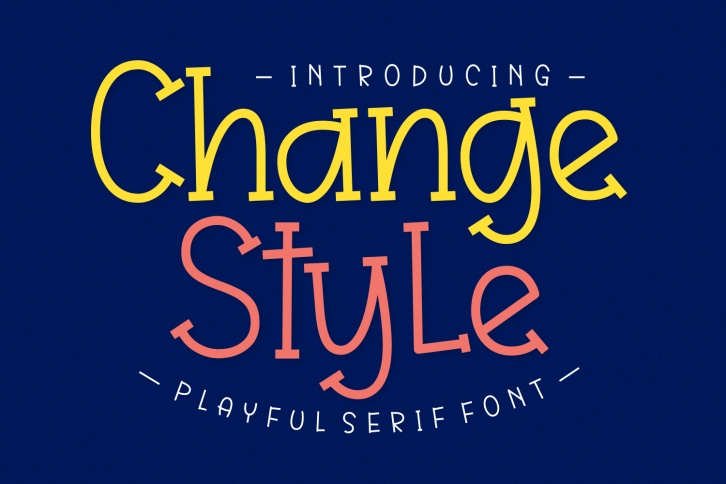
Change Style is a sweet and playful serif font. Whether you use it for cartoon related designs, children games or just any creation that requires a lovely touch, this font will be an amazing choice.